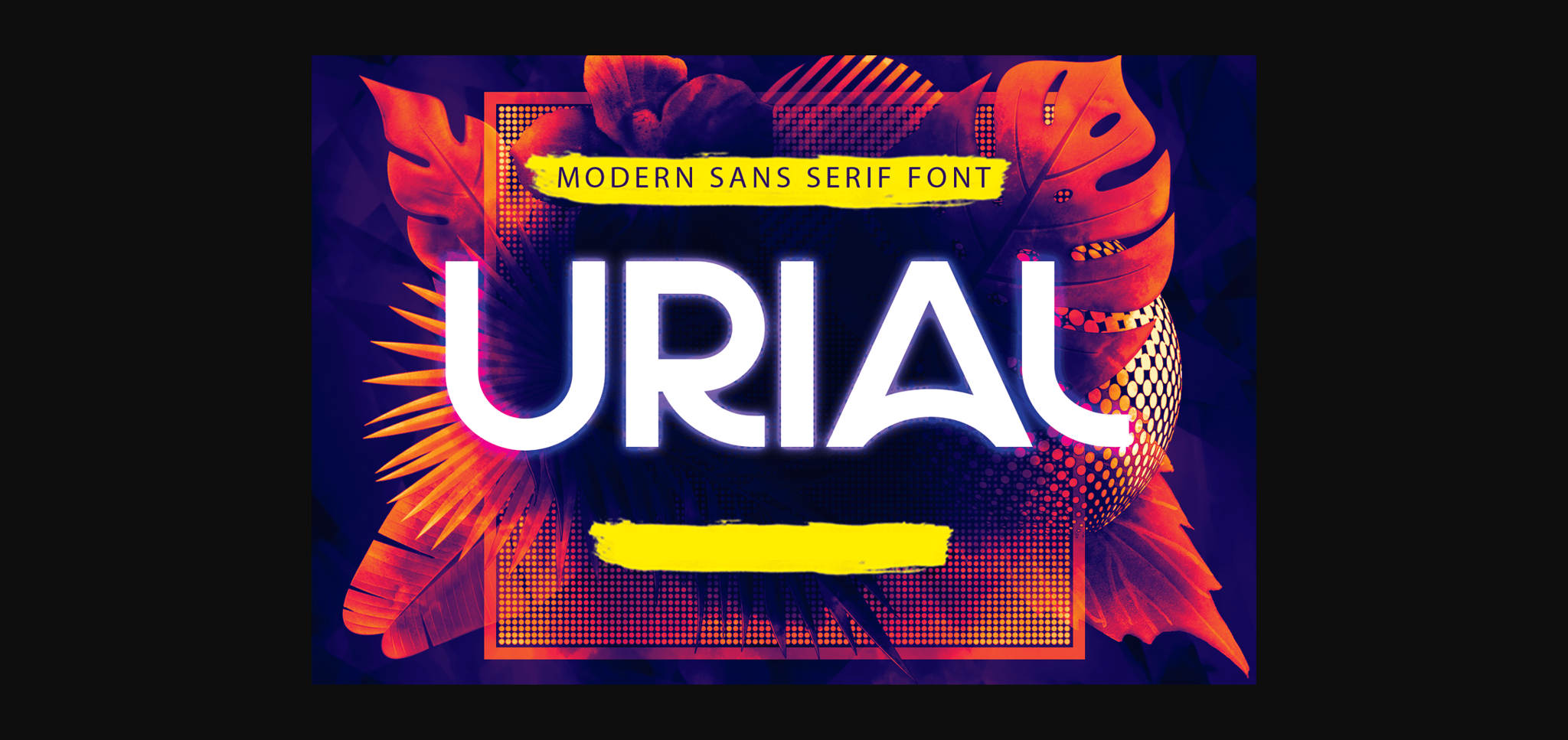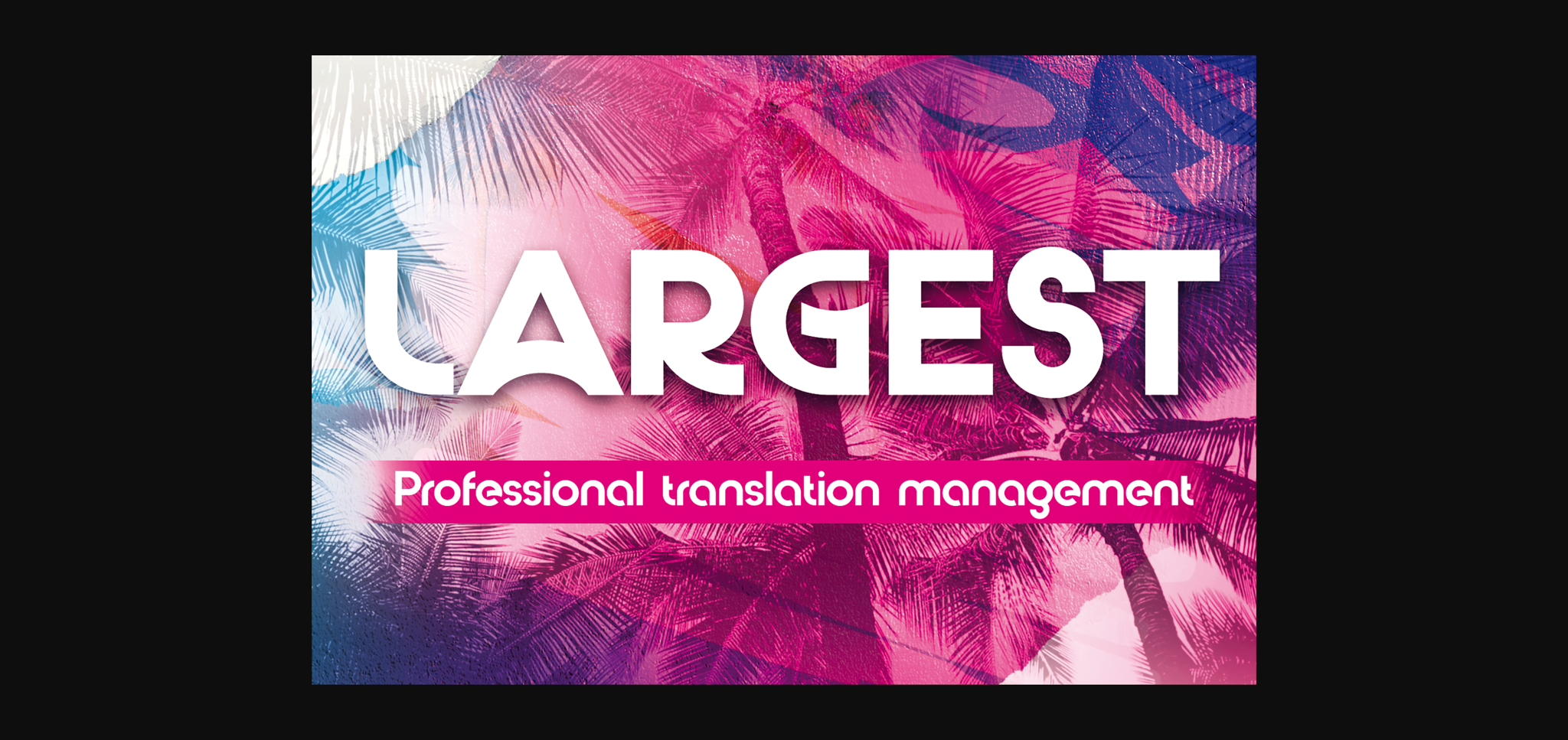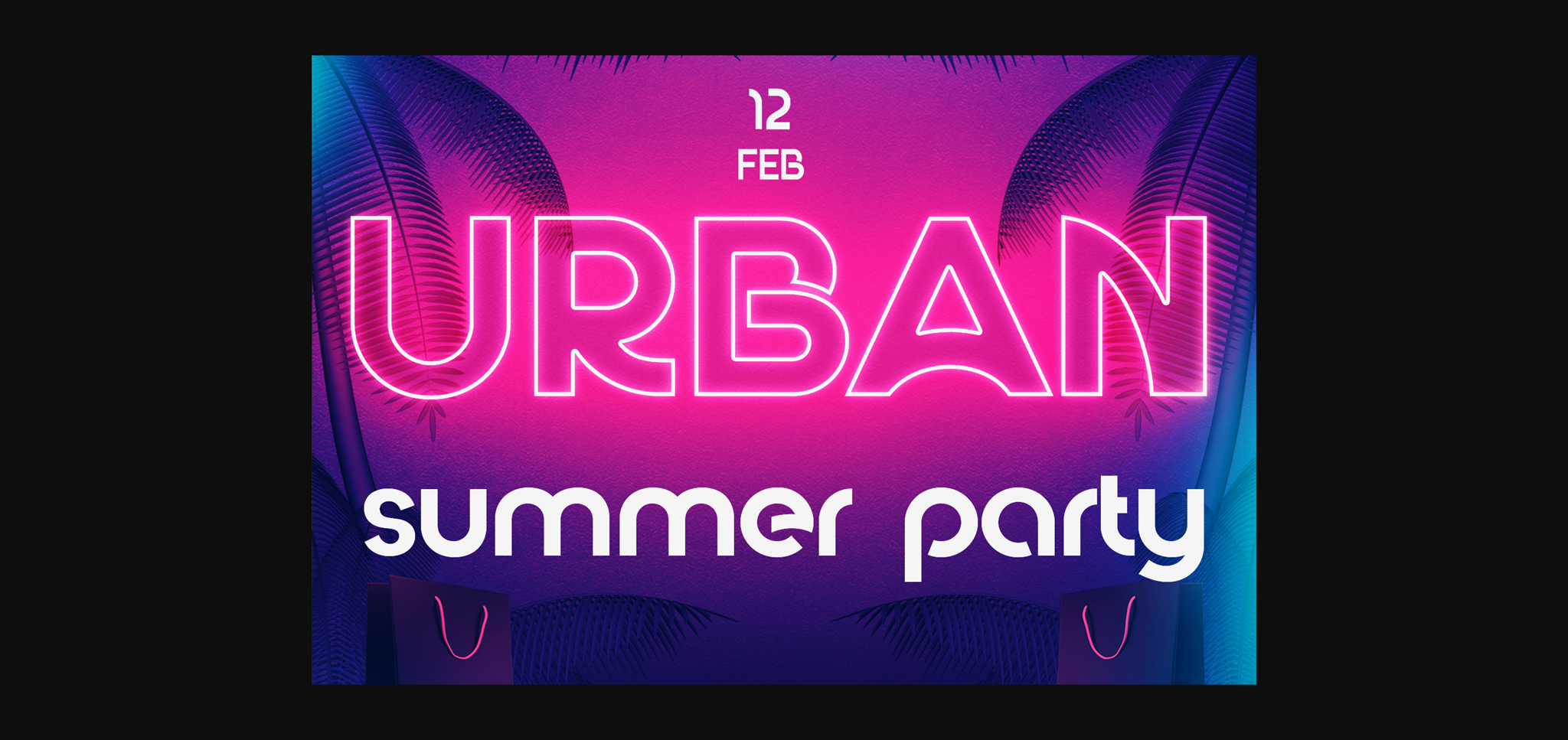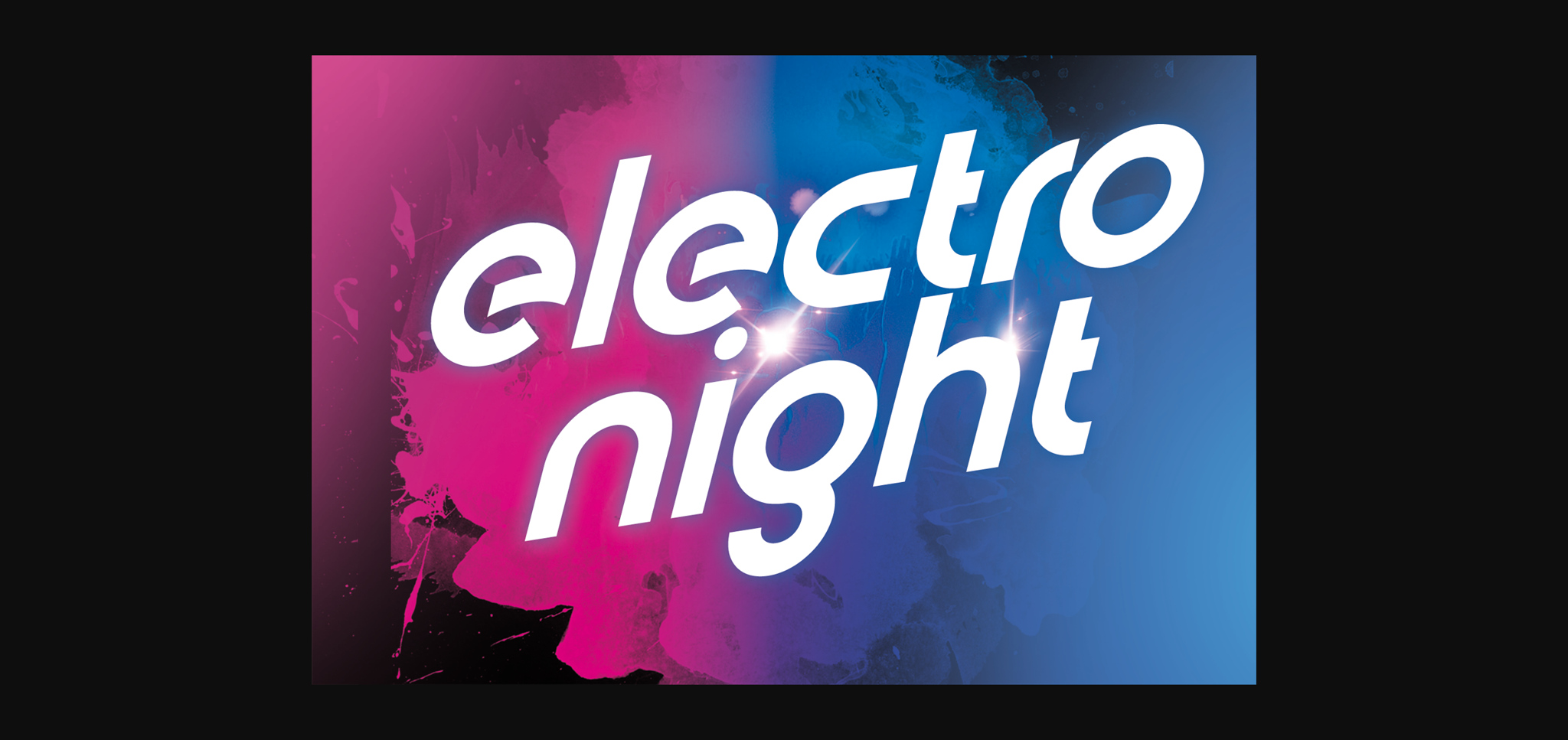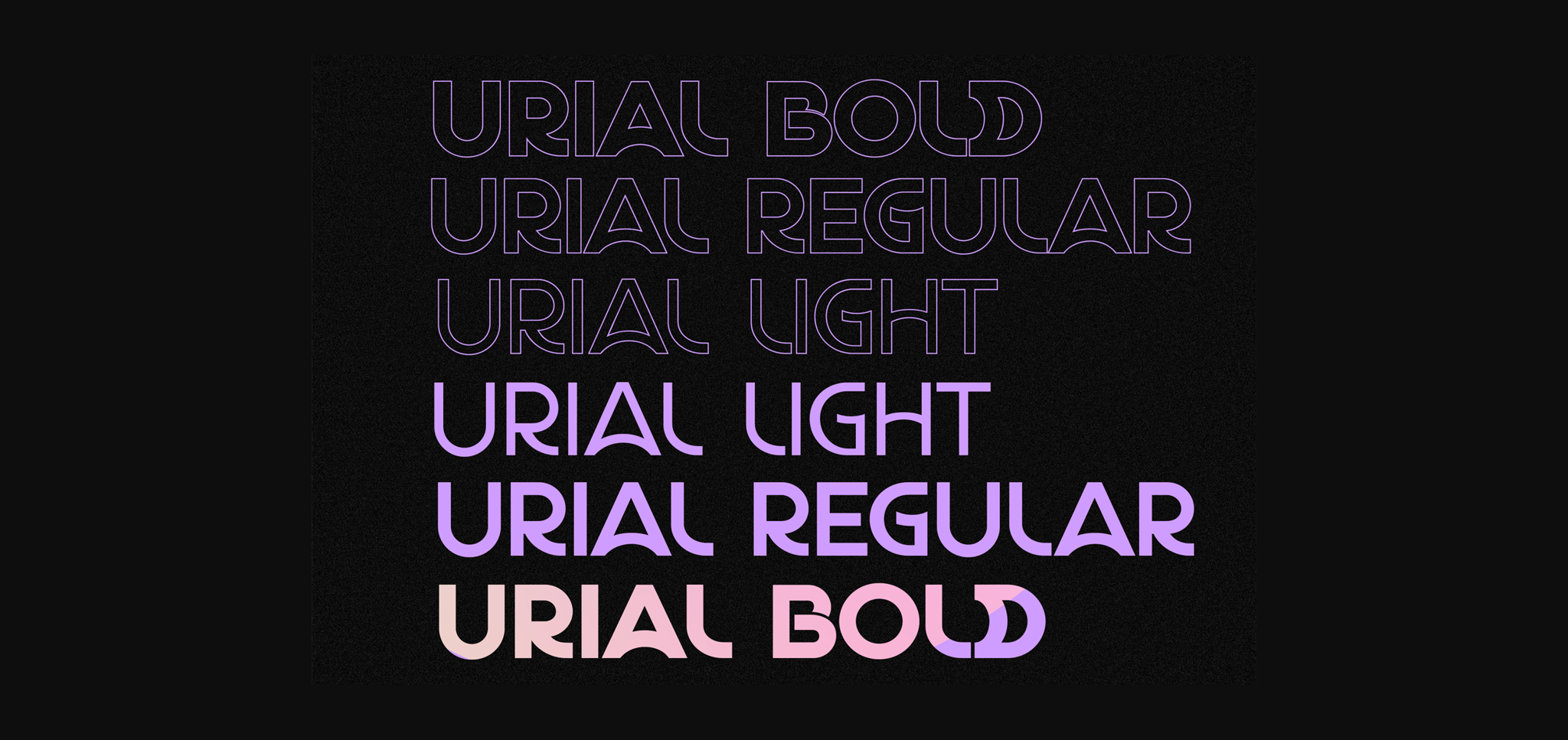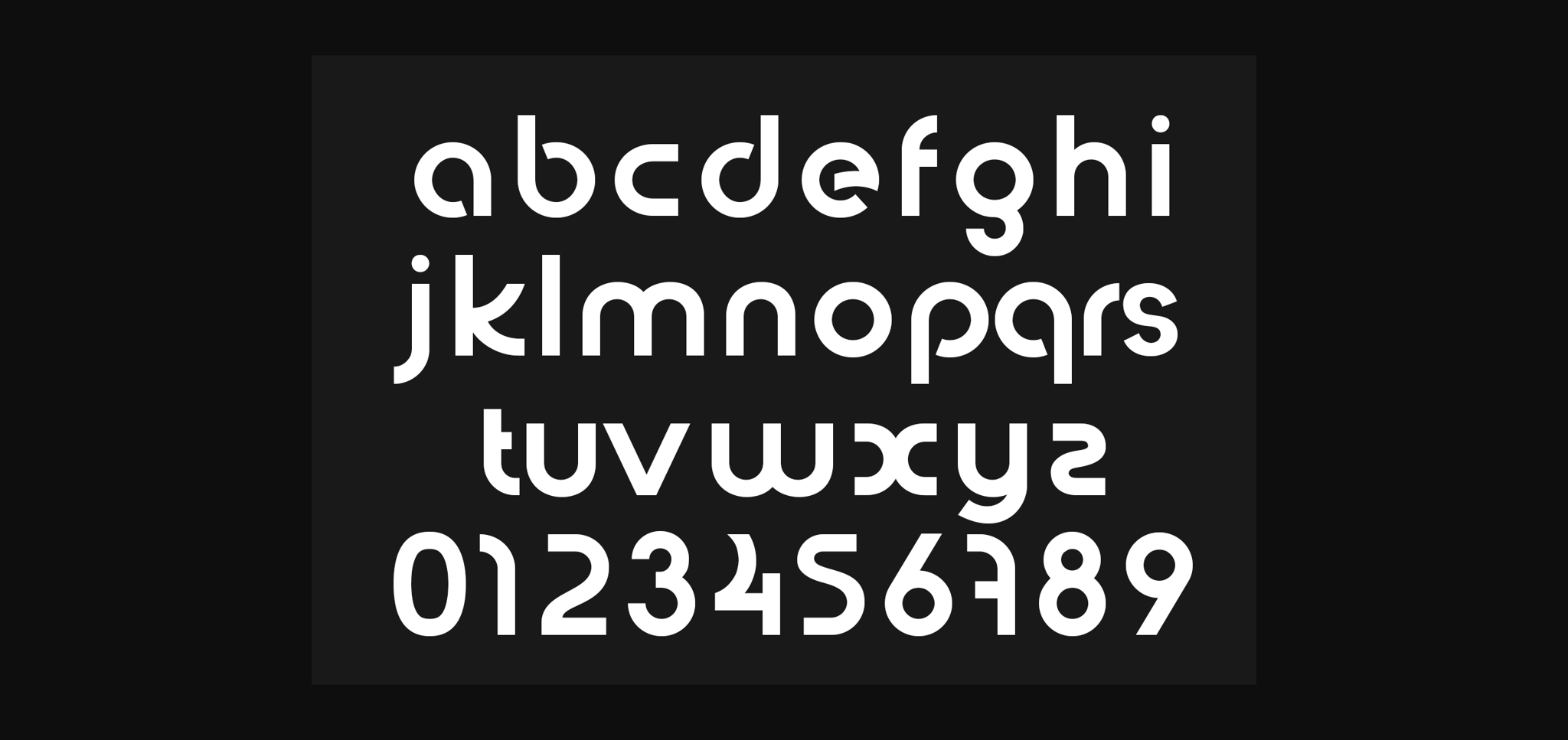
Urial Font
About Urial Font
Urial is a cool and modern sans serif font. Suitable to a wide variety of designs due to its neat and simple style, this font has the potential to become your favorite go-to font, no matter the occasion!